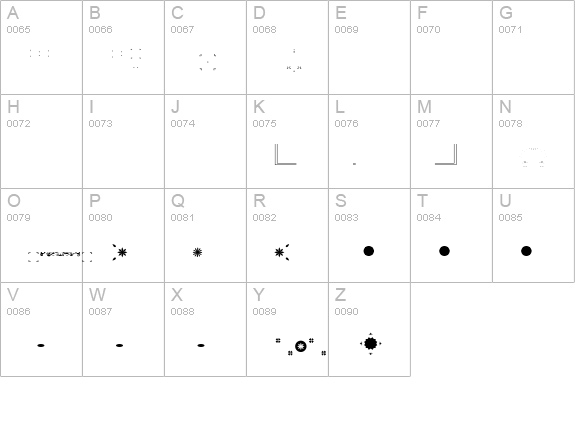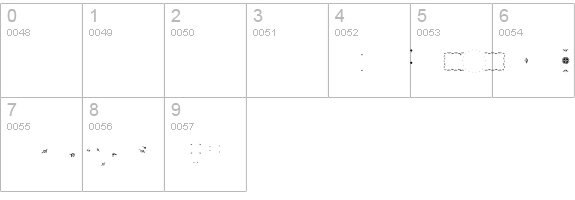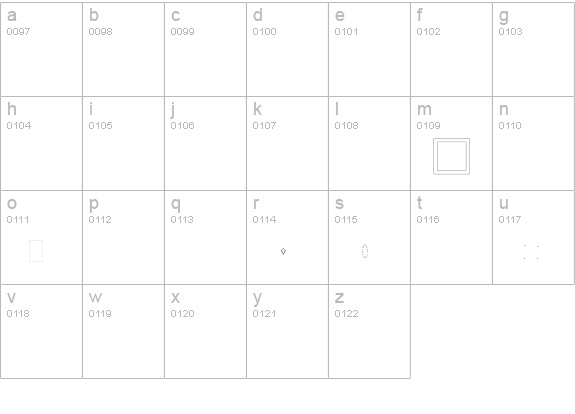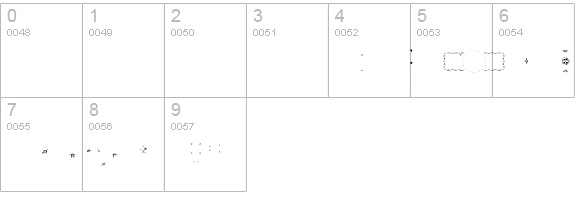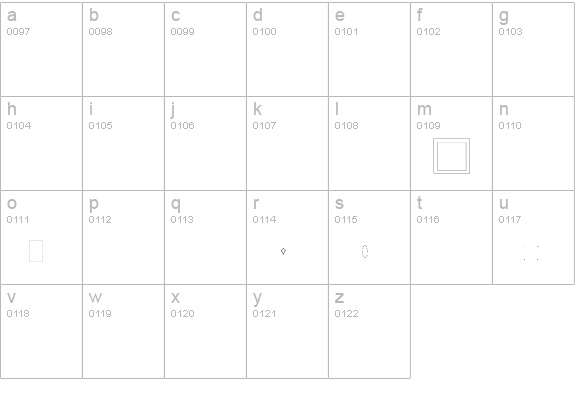
PFOrnmTreasures3-Layer5 font is a stunning display font that adds a touch of elegance and sophistication to any design project. With its intricate details and ornate embellishments, this font is perfect for creating eye-catching headlines, posters, invitations, and more. The 3-layer design allows for endless creative possibilities, giving your text a unique and standout look. The best part? This exquisite font is completely free to download at FontsMarket.com. Whether you're a professional designer looking to add a touch of luxury to your work or a hobbyist looking to spice up your projects, PFOrnmTreasures3-Layer5 font is the perfect choice. Download it now and start creating beautiful designs that will leave a lasting impression.